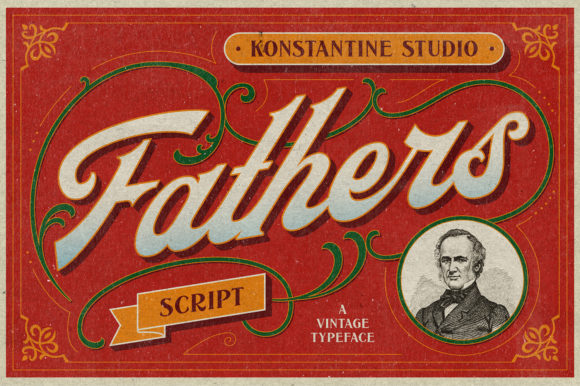
Prepare yourself to be captivated by the Fathers Font, a meticulously handcrafted script font that exudes both elegance and boldness. This font is meticulously designed to bestow your logos and headlines with an aura of sophistication, making it an ideal choice for businesses such as cafes, boutiques, and lifestyle brands that seek to make a lasting impression.
With its strong, confident, and dynamic presence, the Fathers Font commands attention and adds a touch of nostalgic charm to your designs. Its sweeping strokes and playful curves create a sense of movement and energy that is sure to leave a lasting impression on your audience.
As a script font, Fathers Font adds a personal touch to your designs, evoking a sense of authenticity and craftsmanship. Its meticulously crafted glyphs and ligatures create a cohesive and harmonious look that is sure to enhance the overall aesthetic of your projects.
Whether you're designing logos, branding materials, or social media graphics, the Fathers Font is an exceptional choice for those who seek to create a strong visual impact. Its versatility extends to various applications, including web design, print design, and even packaging.
By incorporating the Fathers Font into your creative projects, you'll unlock a world of possibilities and elevate your designs to new heights. Its timeless beauty and captivating charm will undoubtedly leave a lasting impression on your audience, propelling your brand towards success.